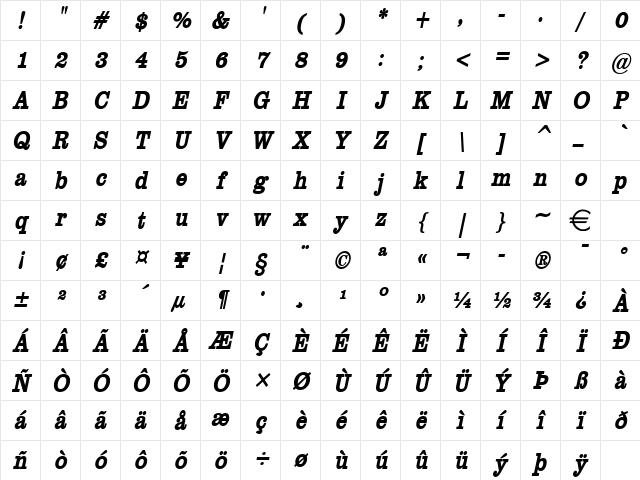
ClareThin is a composed and adaptable typeface that performs quietly and consistently across a wide range of design contexts. The slanted form adds forward momentum and visual energy. Its bold stroke weight gives it real presence on the page.
Pro Tip: Use ClareThin for emphasis, pull quotes, and subheadings where its slanted energy can add rhythm to the layout.